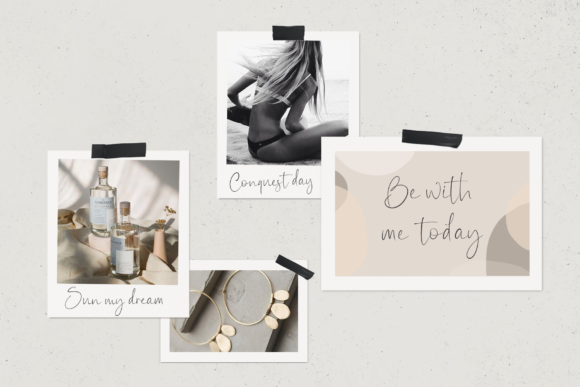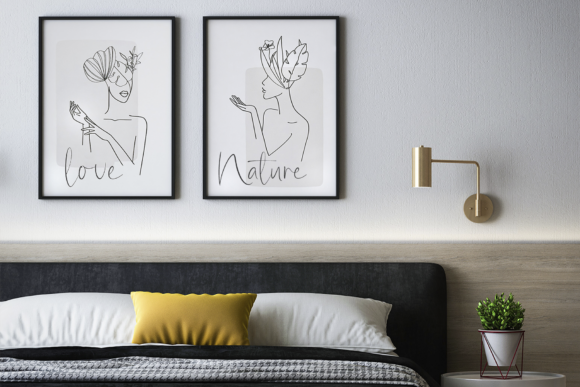
Melgard Font
db-ku.com - Script & Handwritten -- Melgard is a chic, refined script font that emanates sophistication and elegance. Its stylish alternates and ligatures make this font the perfect match for any project. Melgard is PUA encoded which means you can access all of the glyphs and swashes with ease!